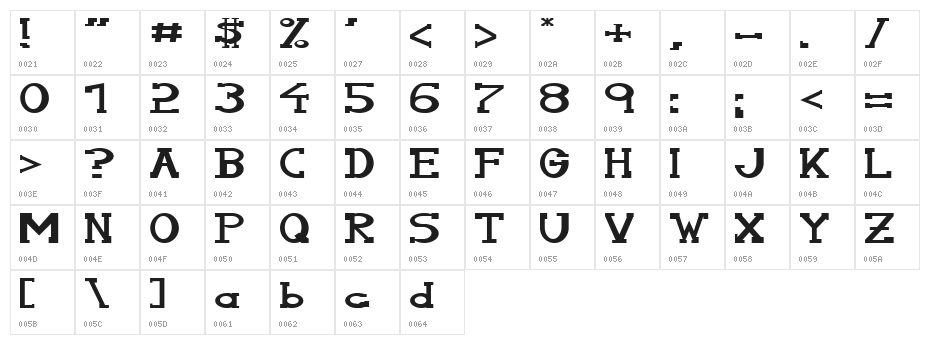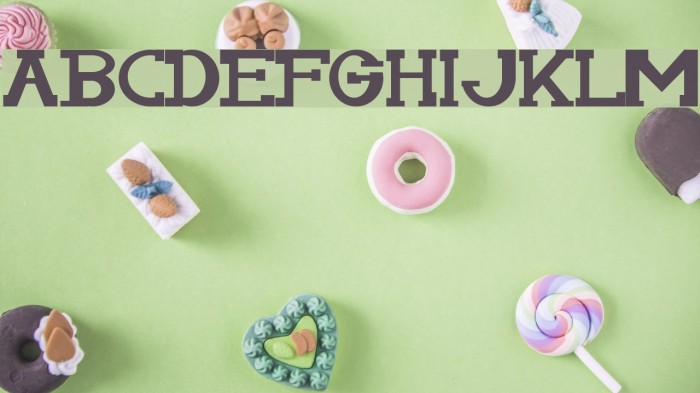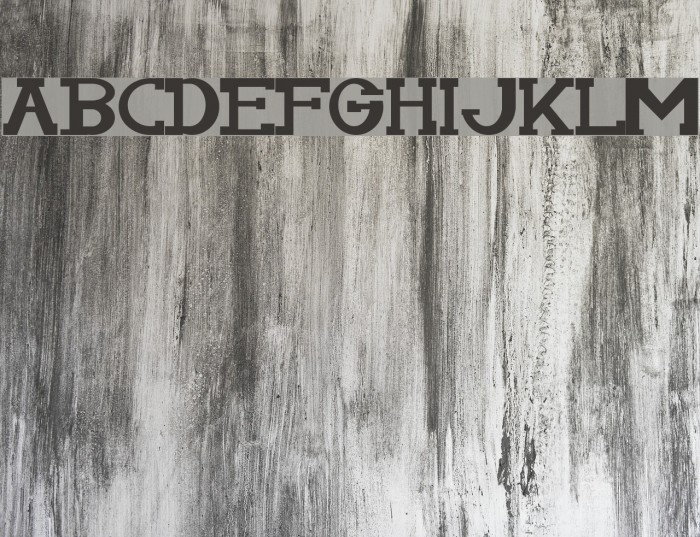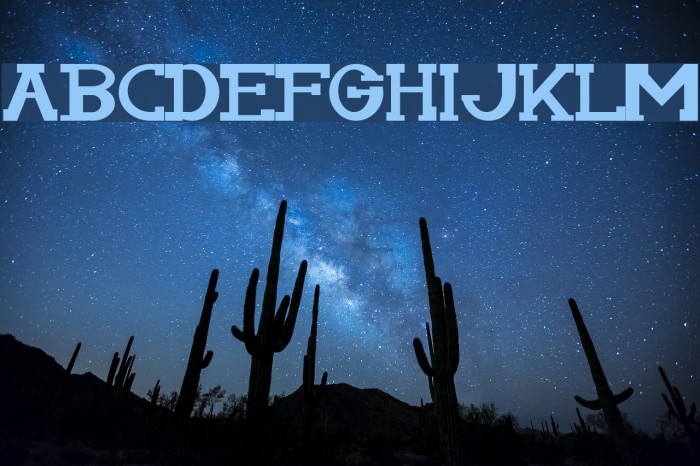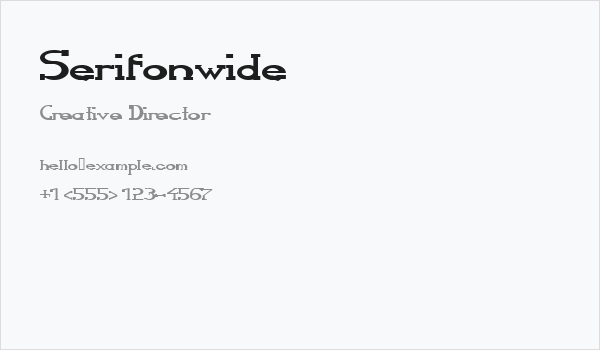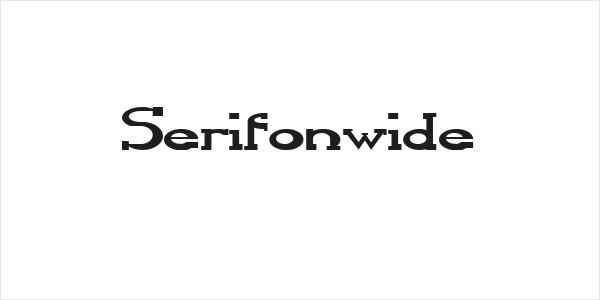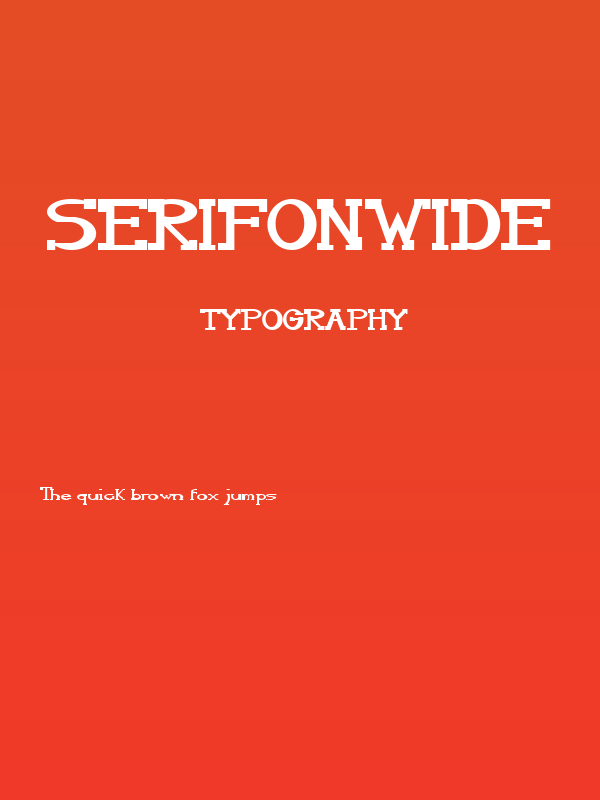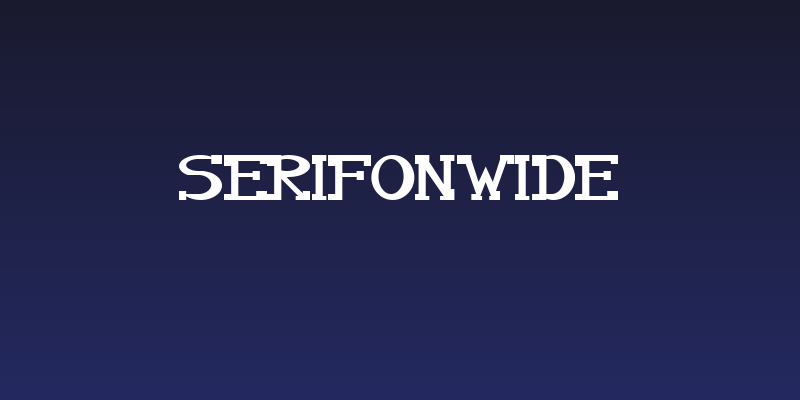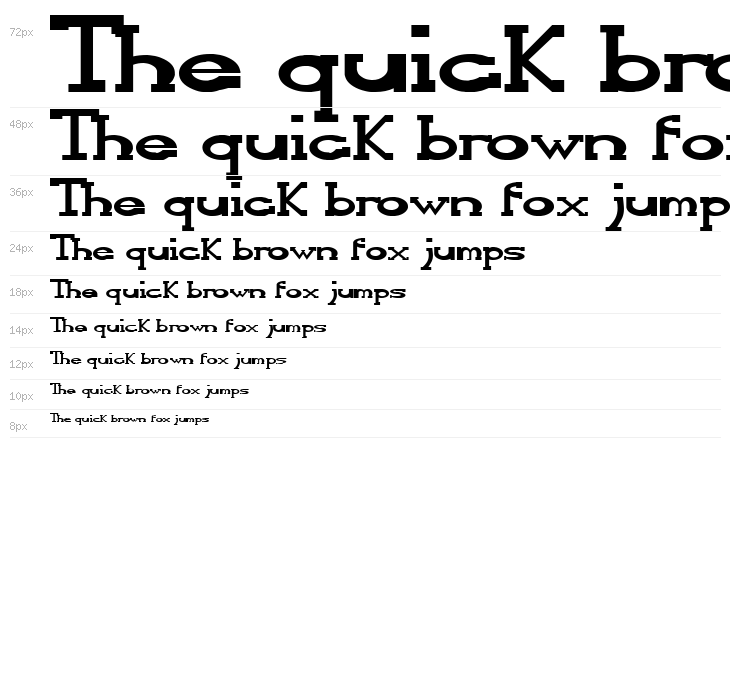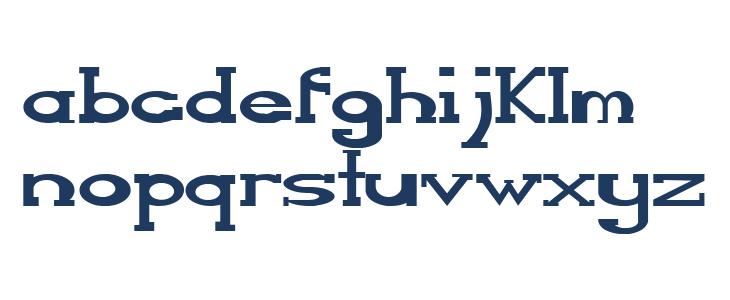
Serifonwide Font
Serifonwide Description
This font features a bold and striking design with a strong presence. The characters are crafted with thick strokes and prominent serifs, giving it a robust and authoritative appearance. The uppercase letters are particularly bold, with a geometric influence that adds a modern touch. The lowercase letters maintain the same boldness, ensuring consistency across the typeface. Numbers and special characters are equally bold, making them stand out. The overall style is a blend of modern and classic elements, making it versatile for various design needs.
| Proposed Projects | Ideal for headlines, posters, branding, and logo design where a strong visual impact is desired. |